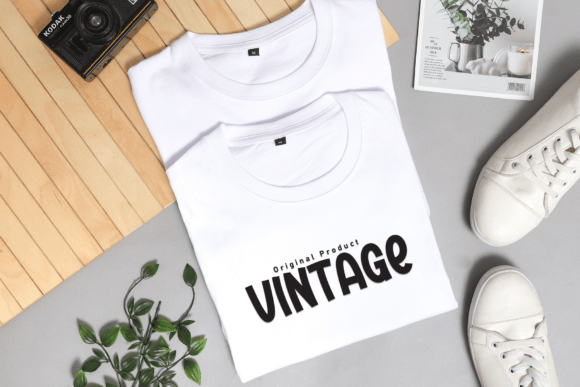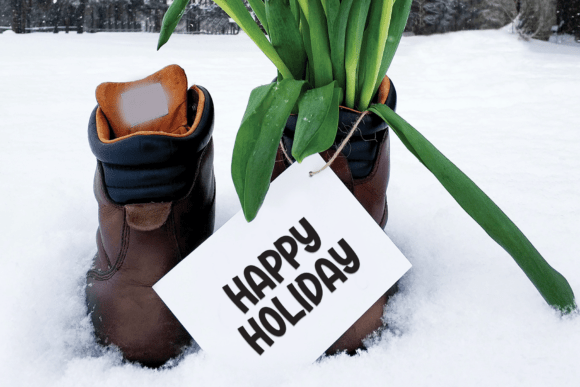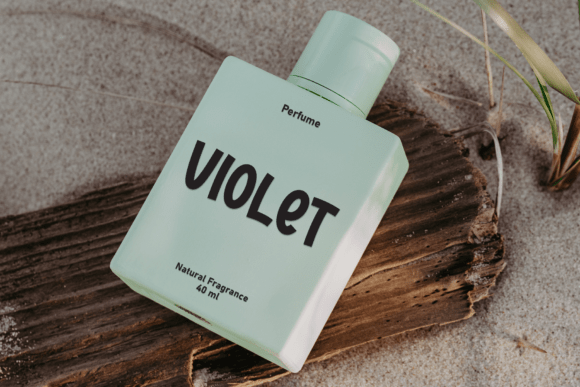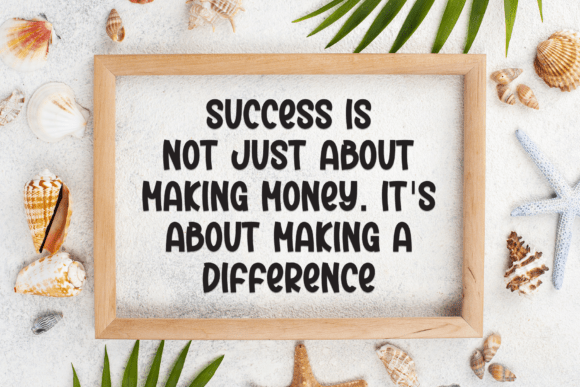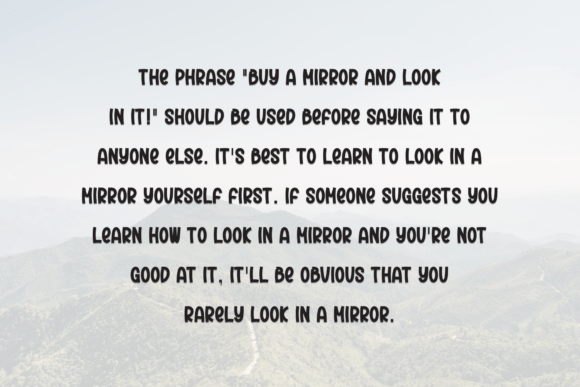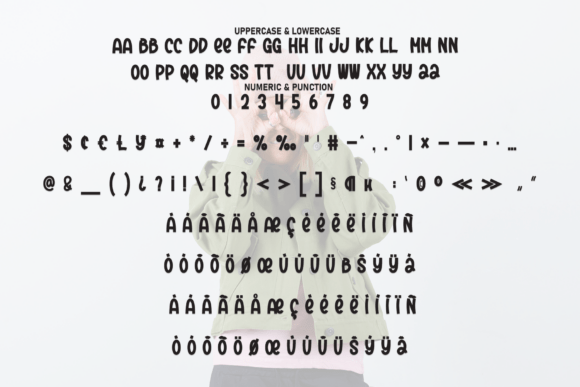
Getting Inspired by the Groovy Someone Font
Do you remember that moment when you stumbled upon the perfect font for your creative project? For designers, it’s a moment of pure excitement and relief. And that’s exactly what we’re about to dive into – a font that has the power to elevate your design and make it truly unforgettable: the Groovy Someone Font.
Whether you’re working on a branding project, creating packaging for your latest product, or simply want to add a touch of personality to your digital content, this font is sure to deliver. With its clean lines, balanced letterforms, and subtle rounded edges, the Groovy Someone Font is the perfect blend of modern handwritten typography and polished finish.
Key Features of Groovy Someone Font
- High-quality design: The Groovy Someone Font is a premium font designed to elevate your creative project with its unique and stylish aesthetic.
- Unique characteristics: The Groovy Someone Font features a distinctive blend of modern and vintage elements, making it perfect for designers who want to add a touch of personality to their work.
- Perfect for creative projects: This font is ideal for use in creative projects, such as logo design, branding, and advertising, where a unique and eye-catching font can make all the difference.
Honest Review: Groovy Someone Font
I recently stumbled upon the Groovy Someone Font, and I must say it’s been a game-changer for my creative projects. The free download was a pleasant surprise, and I was excited to dive in and explore its features.
One of the standout aspects of this font is its versatility. It works well for both digital and print designs, making it a valuable resource for designers. I’ve used it for social media graphics, posters, and even a wedding invitation – the results were always impressive. ✨
However, I did encounter a few limitations. The font is not suitable for body text, as it can be quite ornate and may be difficult to read in larger quantities. Additionally, the lack of italic and bold variations can be a drawback for some designers. ⚠️
Overall, I’m thoroughly impressed with the Groovy Someone Font. Its unique design and high-quality aesthetic make it a valuable resource for designers. I’ve already added it to my list of go-to fonts for creative projects, and I’m excited to see what other designs I can create with it.
To get the most out of the Groovy Someone Font, experiment with different font sizes, colors, and styles to match your design project’s tone and aesthetic. You can also combine the font with other design resources, such as images and graphics, to create a visually appealing and engaging design.
The Groovy Someone Font is ideal for various creative projects, including social media graphics, blog posts, and marketing materials. Its unique and playful style makes it perfect for capturing attention and conveying a fun and youthful vibe.